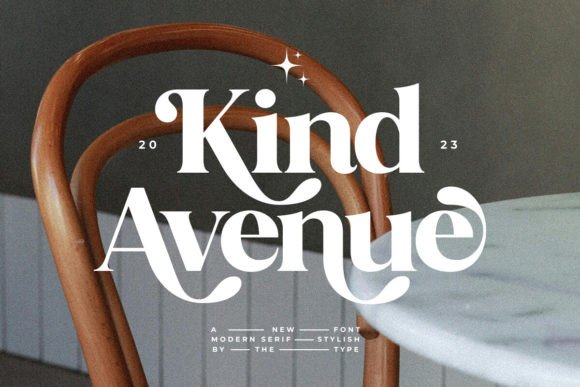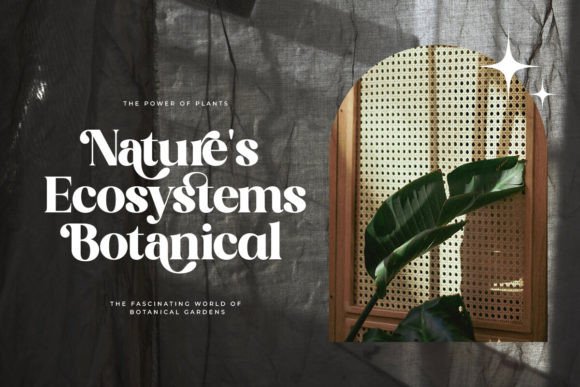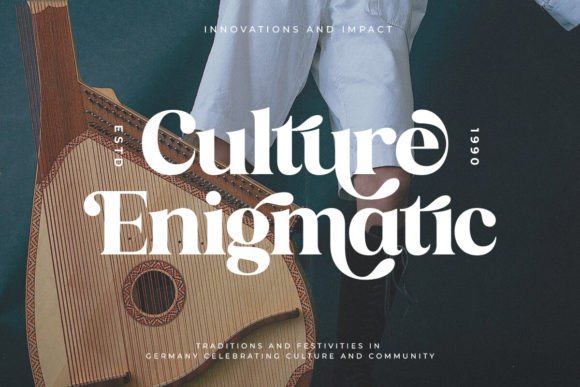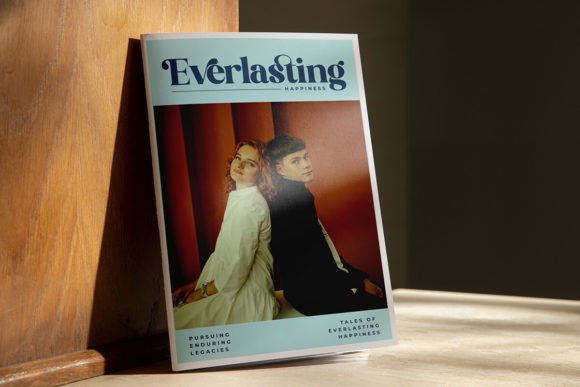
Kind Avenue Font: A Stylish Retro Serif for Branding & Headlines
About the Kind Avenue Font
Add a touch of class to your work with the Kind Avenue Font, a truly exceptional typeface. Kind Avenue – a Stylish Retro Font. This font can look more retro (conservative) serif, which is perfect for texts. So it can be more expressive, playing, and more modern with alternative substitutes and ligatures, try to play with them and you will get uniqueness in your project.
Kind Avenue’s versatility shines in headlines, logos, and short-form text within branding materials and posters. Its retro styling lends itself well to projects with a vintage or nostalgic feel. However, avoid using it for lengthy body text or UI elements; the stylistic flourishes can become visually overwhelming and hinder readability in continuous paragraphs.
The font’s core personality is playful yet sophisticated. It projects a friendly, approachable vibe with a touch of vintage charm. This makes it ideal for brands targeting a younger demographic or those wishing to convey a sense of fun and approachability without sacrificing elegance.
Pairing Kind Avenue with a clean sans-serif like Lato or Open Sans provides a contemporary contrast, while a classic serif like Garamond or Merriweather balances its retro feel. For a more playful aesthetic, consider pairing it with a script font like Great Vibes.